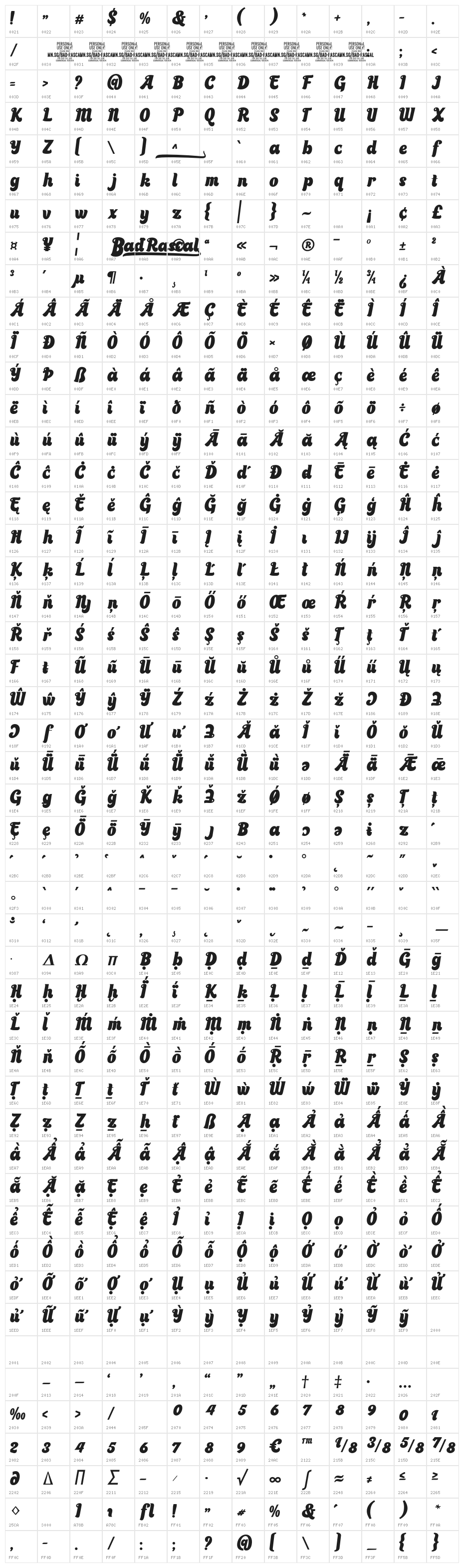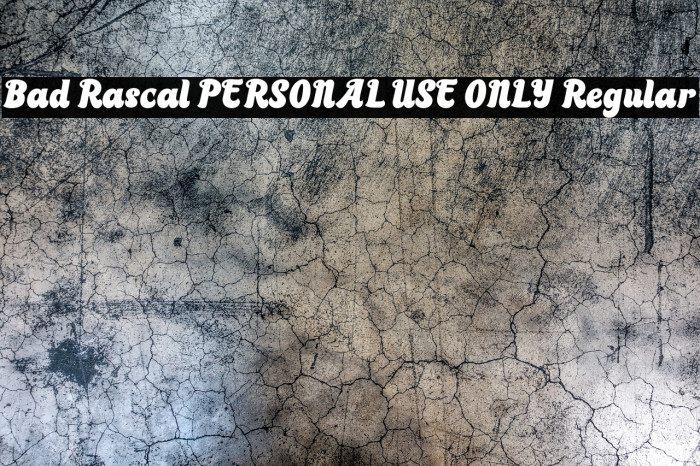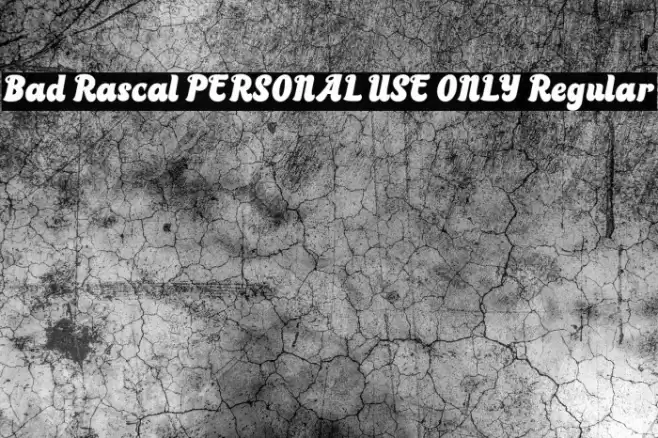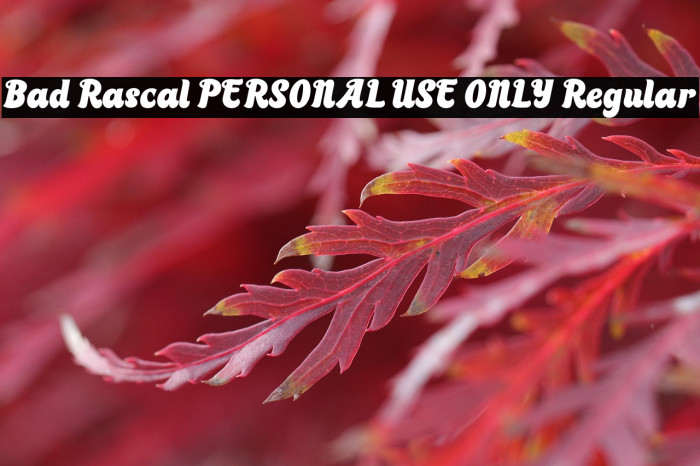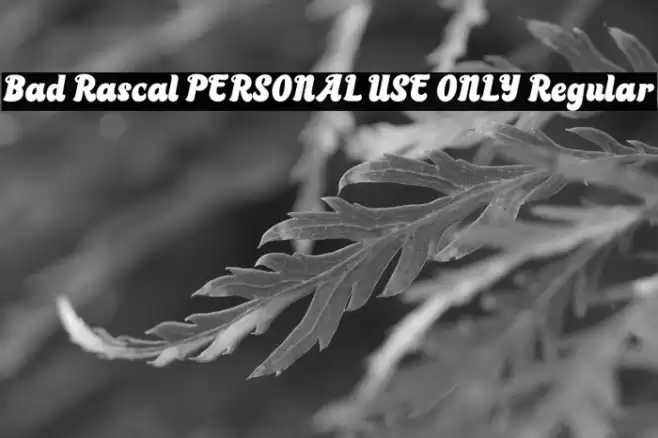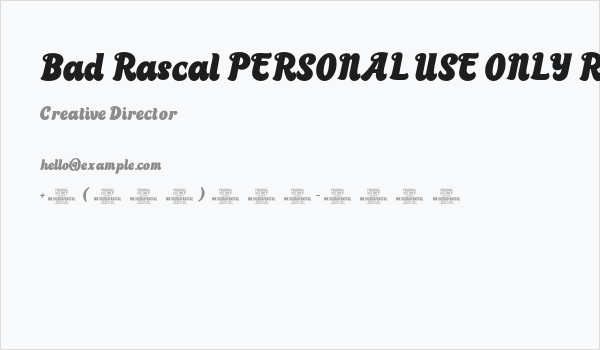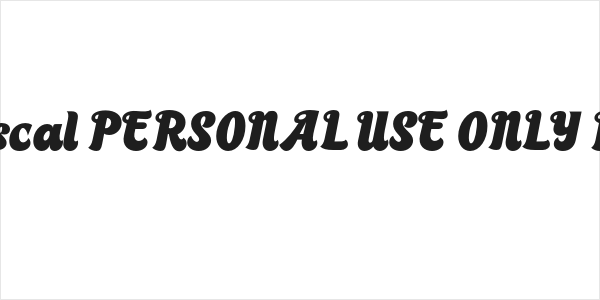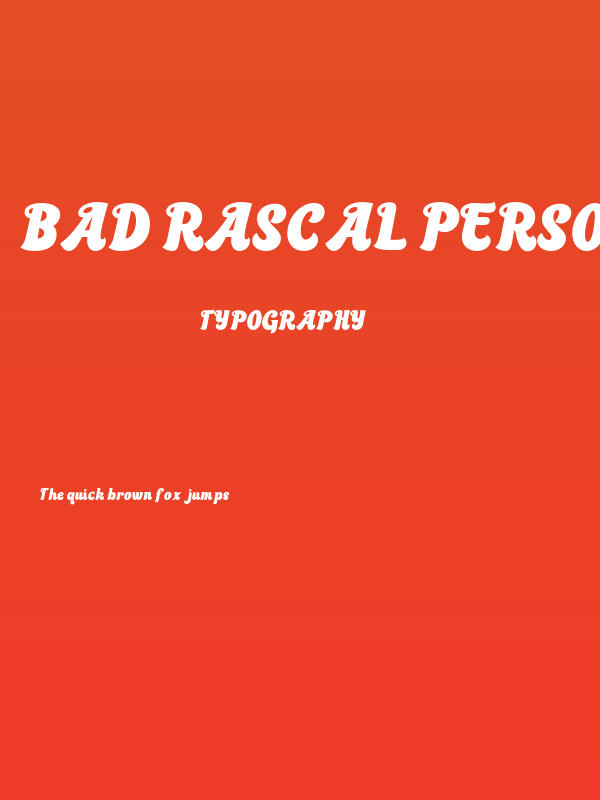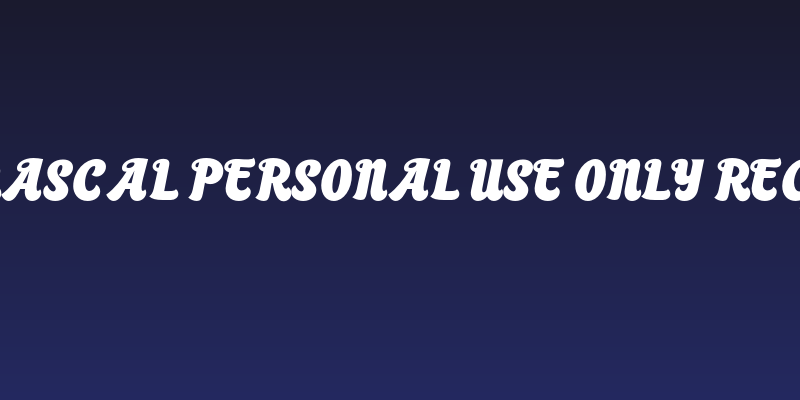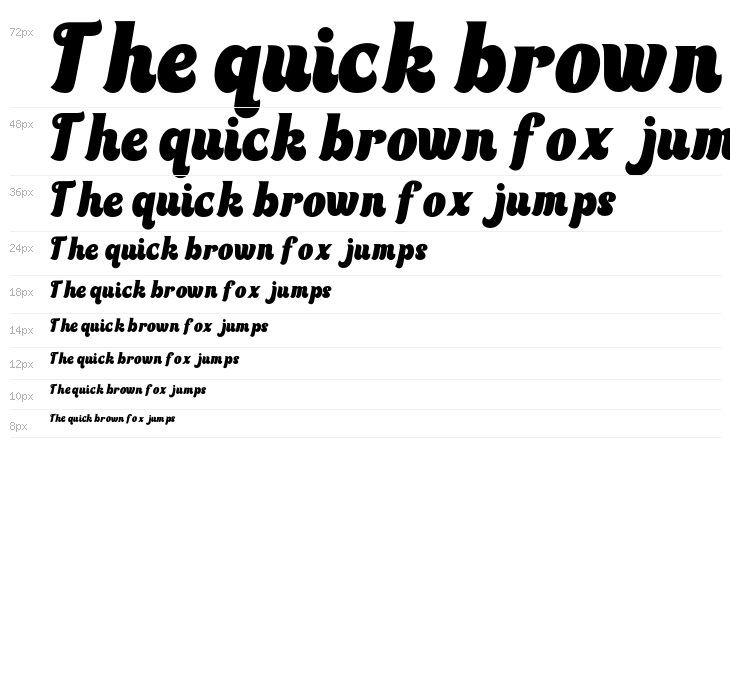
Bad Rascal PERSONAL USE ONLY Regular Font
Bad Rascal PERSONAL USE ONLY Regular Description
This font features a bold and playful script style with a strong presence. The letters are rounded and have a slight slant, giving them a dynamic and energetic feel. The uppercase characters are robust and commanding, while the lowercase letters maintain a consistent flow with smooth curves. The numbers and special characters are designed to match the overall whimsical aesthetic, making them suitable for creative and informal applications. The font's boldness ensures readability while adding a touch of personality to any text.